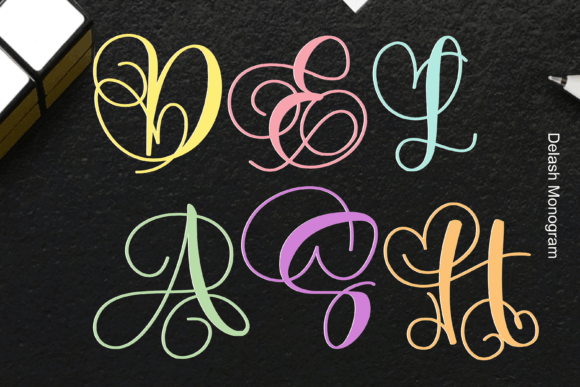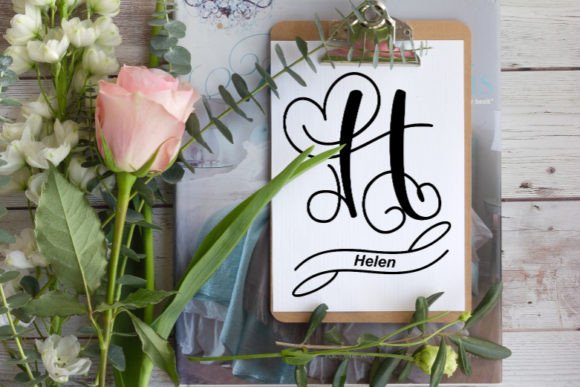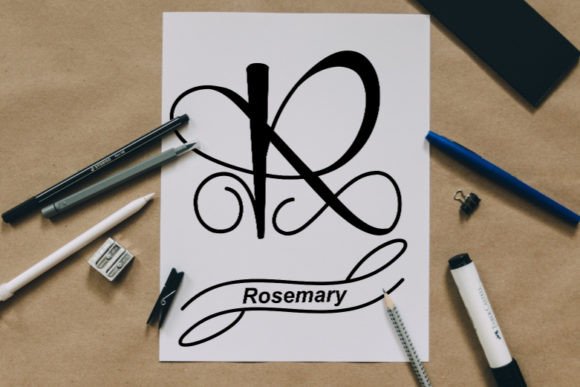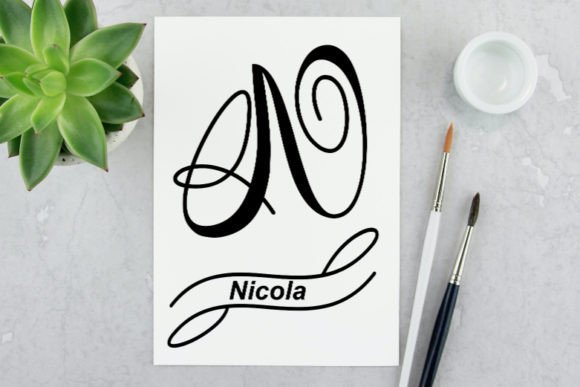
Delash Font: Elegant Monogram Font for Cricut & DIY Projects
About the Delash Font
Discover the charm of Delash Font. This font is a perfect blend of modern aesthetics and classic appeal. Delash is a charming decorative monogram font. Fall in love with its authentic feel and use it to create gorgeous invitations, beautiful stationary art, eye-catching social media posts, and cute greeting cards.
Delash’s decorative style makes it ideal for headlines, short text blocks on branding materials, and eye-catching social media graphics. It excels in applications requiring a touch of vintage charm, such as logos for boutiques or artisanal businesses, wedding invitations, and packaging for luxury goods. However, its ornate nature makes it unsuitable for body text or UI elements; readability suffers at smaller sizes and within extended passages.
Its charming, yet slightly whimsical personality pairs well with clean sans-serif fonts like Montserrat or Open Sans for a balanced contrast. For a more luxurious feel, consider pairing Delash with a classic serif like Garamond or a sophisticated script font like Great Vibes, but use these pairings sparingly to avoid visual clutter.
Delash projects a friendly, slightly nostalgic personality, best suited for brands that value authenticity and handcrafted quality. Avoid using it for projects requiring a modern, minimalist aesthetic or where high readability is paramount.